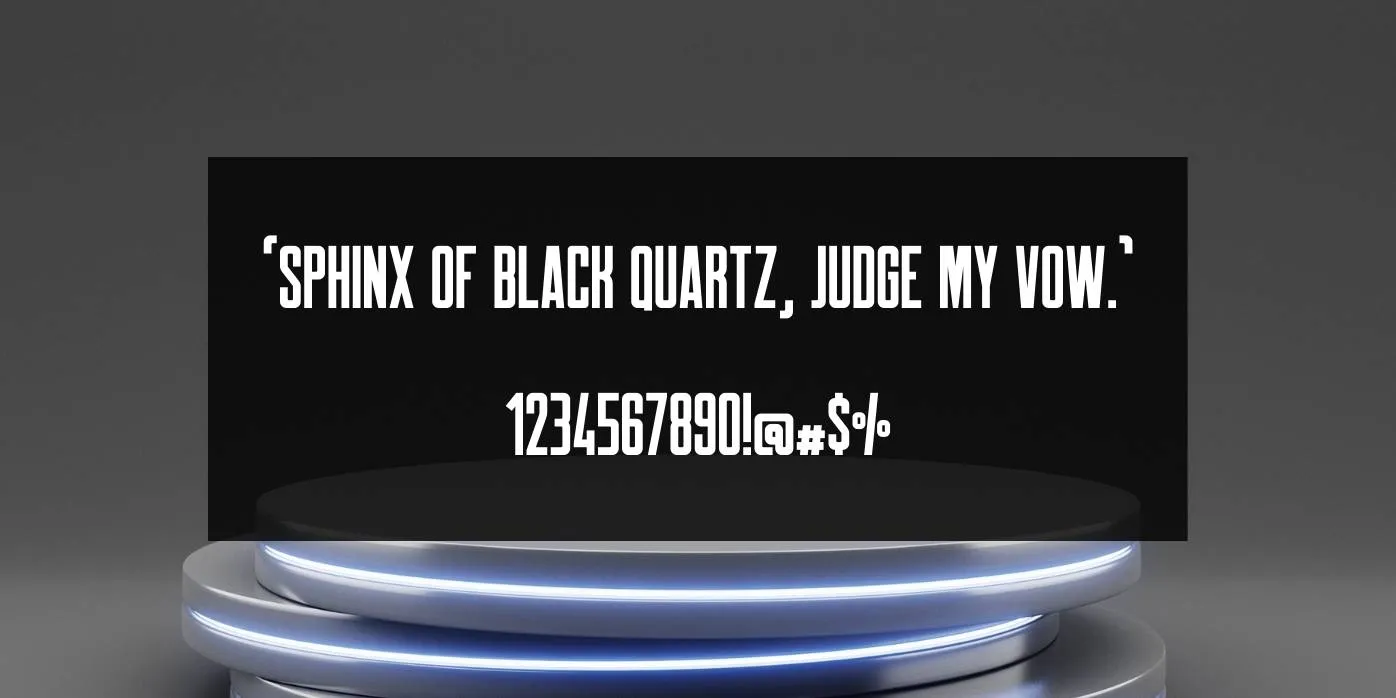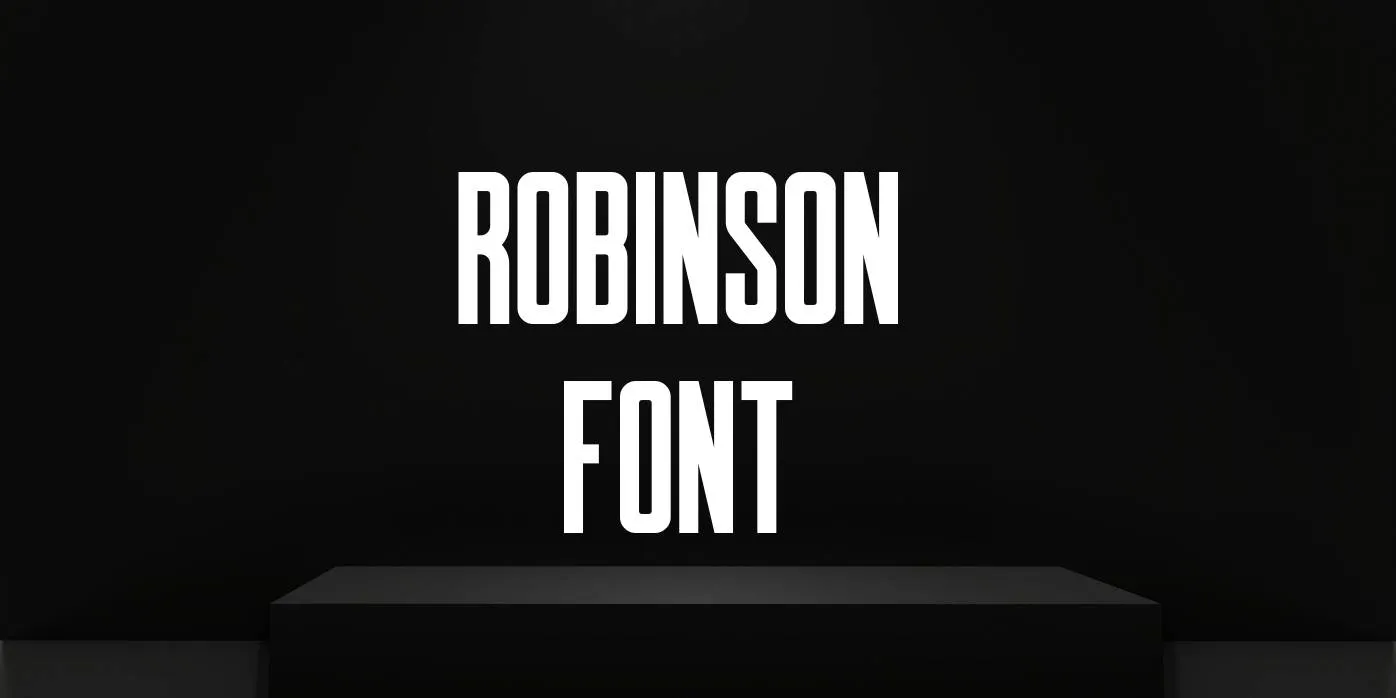
Robinson Font
Here, we are going to present Robinson Font which was developed by Tugcu Design Co. This typeface belongs to the sans serif family. It is a strong typeface that is good for both headlines and body text. This typeface is specified for the CSS and SVG.
The Robinson family includes 8 weights Thin, Light, Regular, Medium, DemiBold, Bold, Extrabold, and Black with matching italics. It supports Latin-based languages as well as Cyrillic languages. Also, this family includes glyphs for the most used currencies. It is suitable for Adobe fonts.